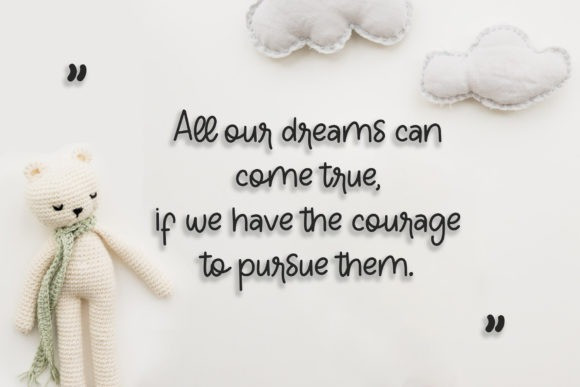
Galaxy Font
Galaxy Font is a simple and friendly handwritten font. Its natural and unique style makes it incredibly fitting to a large pool of designs. The only limit is your imagination!